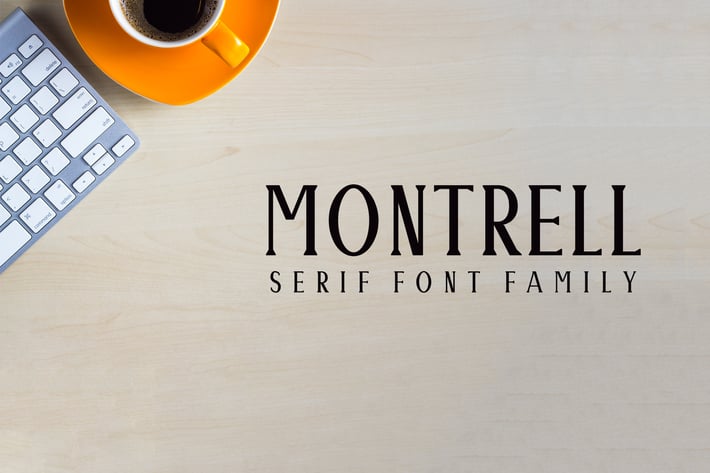
Montrell Serif Font Family Pack
Montrell Serif Typeface is minimalist and beautiful serif font family of 5 weights and it features unique and modern serif look and feel. Perfect for gorgeous logos & titles, layouts & content, or large & small scale, It looks gorgeous in all caps with a wide-set spacing if you want to try a classy look, or beautiful on its own in capital and lowercase letters for something completely timeless.
+ Font Weight: Regular, Light, Thin, Outline and Bold
Montrell Font Features:
+ Uppercase Multilingual Letters
+ Lowercase Multilingual Letters
+ Numbers & Punctuation
+ Non English Characters ( Latin Extended A )
+ ABCDEFGHIJKLMNOPQRSTUVWXYZ
+ abcdefghijklmnopqrstuvwxyz
+ 0123456789
+ !"#$&'()*+,-./:;=?@[]_|¡¢¿
+ ÀÁÂÃÄÅÈÉÊËÌÍÎÏÑÒÓÔÕÖØÙÚÛÜÝ
+ àáâãäåèéêëìíîïñòóôõöøùúûüÿ
+ ĀāĂăĆĈĊċČčĎďĒēĔĕĖėĚěĜĞğĠġĤĨĩĪīĬĭİıĴĹĽľŃŇ
+ ňŌōŎŏŔŘřŚŜŠšŤťŨũŪūŬŭŮůŴŶŸŹŻżŽžǫẀẂẄẼỲ
+ Ȧɢɪɴʀʏʙʜʟᴀᴄᴅᴇᴊᴋᴍᴏᴘᴛᴜᴠᴡᴢ
+ ‘’“”€ꜰꜱ